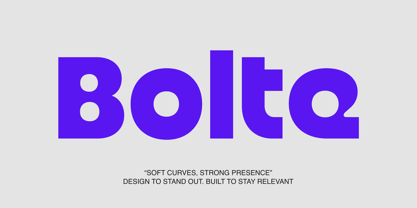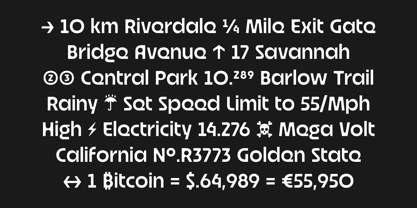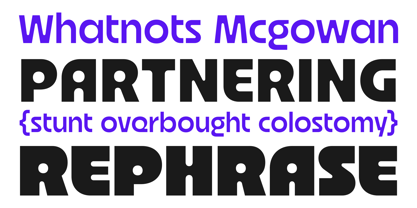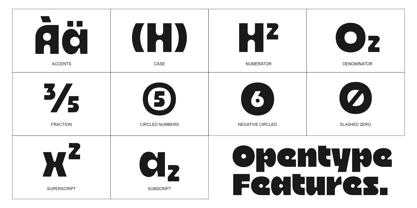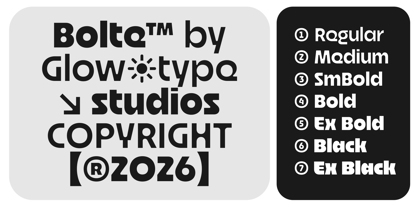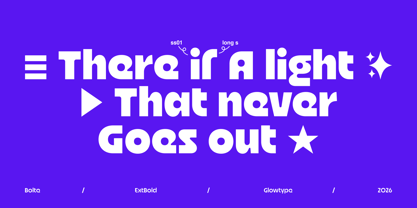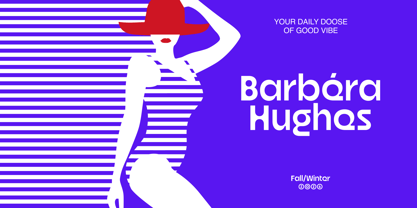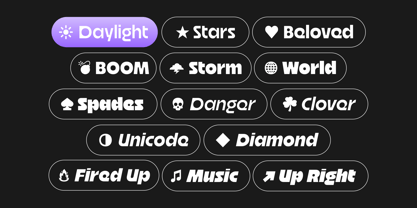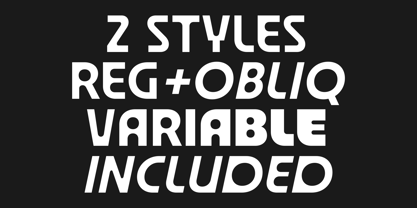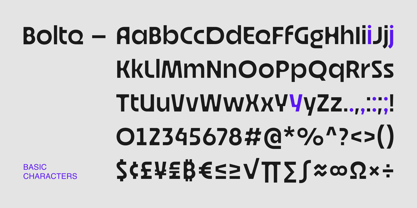
Bolte Variable
Bolte is a rounded display sans built around weight, warmth, and clarity. Its generous proportions, soft terminals, and confident rhythm create a voice that feels approachable without sacrificing presence.
Drawing inspiration from the practicality of grotesque sans-serifs and the friendliness of contemporary rounded forms, Bolte balances structure and personality in equal measure. The result is a typeface that feels bold and expressive at large sizes while remaining remarkably clear and composed in branding applications.
The design features broad curves, compact spacing, and a high visual density that gives every word a strong, unified silhouette. Rounded details soften the overall texture, creating a welcoming tone that works naturally across food packaging, consumer products, editorial headlines, visual identities, and digital experiences.
Rather than relying on novelty, Bolte focuses on timeless shapes and durable proportions. Its character comes from subtle decisions in construction—carefully controlled curves, balanced counters, and a consistent rhythm that keeps the design playful yet refined.
Whether used for a striking logo, a vibrant package design, or a bold display headline, Bolte brings confidence, charm, and memorability to the page.
Designed to stand out. Built to stay relevant.